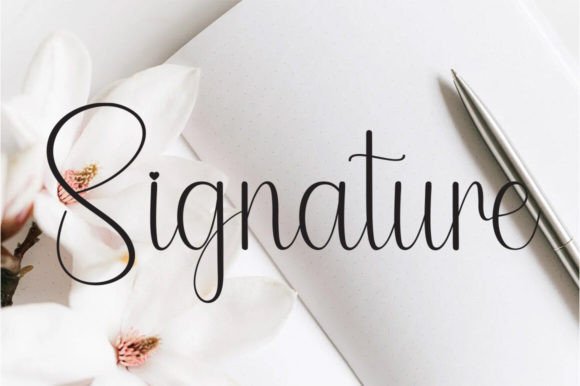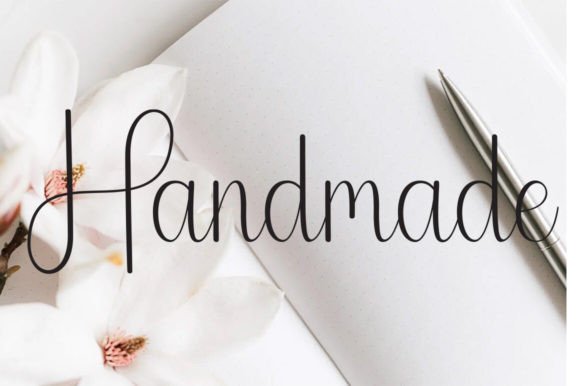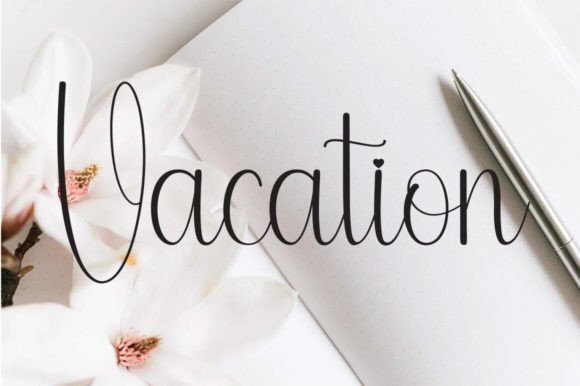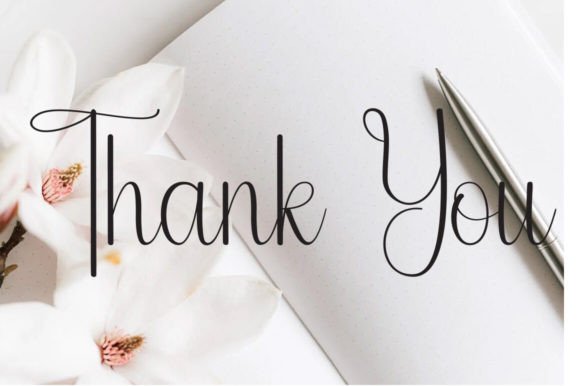
The Perfect Touch: Unlocking the Beauty of Calligraphy Font
Have you ever found yourself in the midst of a creative project, staring blankly at a blank page, searching for that perfect font to bring your vision to life? It’s a moment we’ve all experienced – the moment when the right font can make all the difference between a good design and a great one.
That’s where Calligraphy Font comes in – a beautiful, cursive handwritten font that adds a touch of elegance and romance to any design. Whether you’re creating a wedding invitation, a baby shower card, or a logo for a new business, Calligraphy Font is the perfect choice to add a personal and whimsical touch. Its versatility and charm make it a valuable asset for designers, allowing them to add a unique and eye-catching element to their projects.
Key Features of Calligraphy Font
- Unique Characteristics: Calligraphy Font features elegant, cursive letterforms with intricate flourishes and subtle variations in stroke width, giving it a sophisticated and artistic feel.
Review of Calligraphy Font
Overall, I think Calligraphy Font is a beautiful addition to any design project. It’s perfect for creating elegant and sophisticated text that’s sure to grab attention. ✨
- Stylish and decorative, perfect for wedding invitations or other formal events.
However, as with any font, there are some limitations to consider. ✨
- May not be suitable for body text, as it can be difficult to read in smaller sizes.
- Not ideal for digital displays, as the ornate details can be lost on lower-resolution screens.
- Can be overwhelming if used too extensively, so be sure to balance it with other fonts and design elements.
Overall, I think Calligraphy Font is a great choice for designers looking to add a touch of elegance to their work. While it may have some limitations, its beauty and versatility make it a valuable addition to any design project.
Tips for Getting the Most Out of Calligraphy Font
1. Experiment with different font sizes and styles to achieve the desired effect.
2. Use calligraphy font for headings or titles to add a touch of elegance.
3. Pair calligraphy font with a simple background to make the text stand out.
2. Event signage and banners.
3. Branding and marketing materials.
Alternatives to Calligraphy Font for Designers
Lobster Font is a modern, cursive script font that is perfect for adding a touch of elegance and sophistication to designs. It is ideal for use in invitations, wedding stationery, and other special occasion materials. Compared to Calligraphy Font, Lobster Font has a more refined and polished look, making it suitable for high-end designs.
Pacifico Font is a beautiful, handwritten font that evokes the feeling of a tropical paradise. It is perfect for use in beach-themed designs, travel brochures, and other materials that require a relaxed and casual tone. Compared to Calligraphy Font, Pacifico Font has a more laid-back and effortless feel, making it ideal for designs that require a carefree vibe.